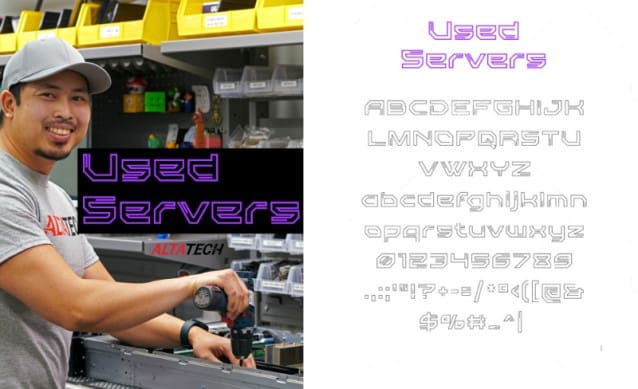
Used Servers Font
Used Servers Font is a retro tech font inspired by the excess server equipment we receive every day. Drawing from the visual styles of the likes of Dell, HP, IBM, Lenovo and Cisco UCS Servers and even old DEC computers.
The family includes a standard style with an additional bold weight, suitable for all print uses.